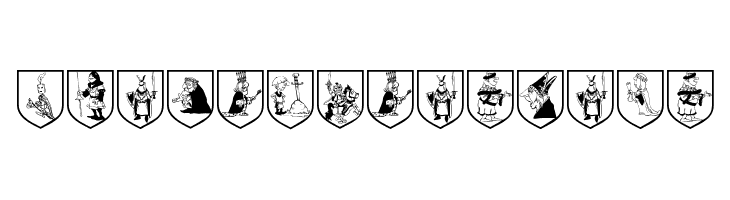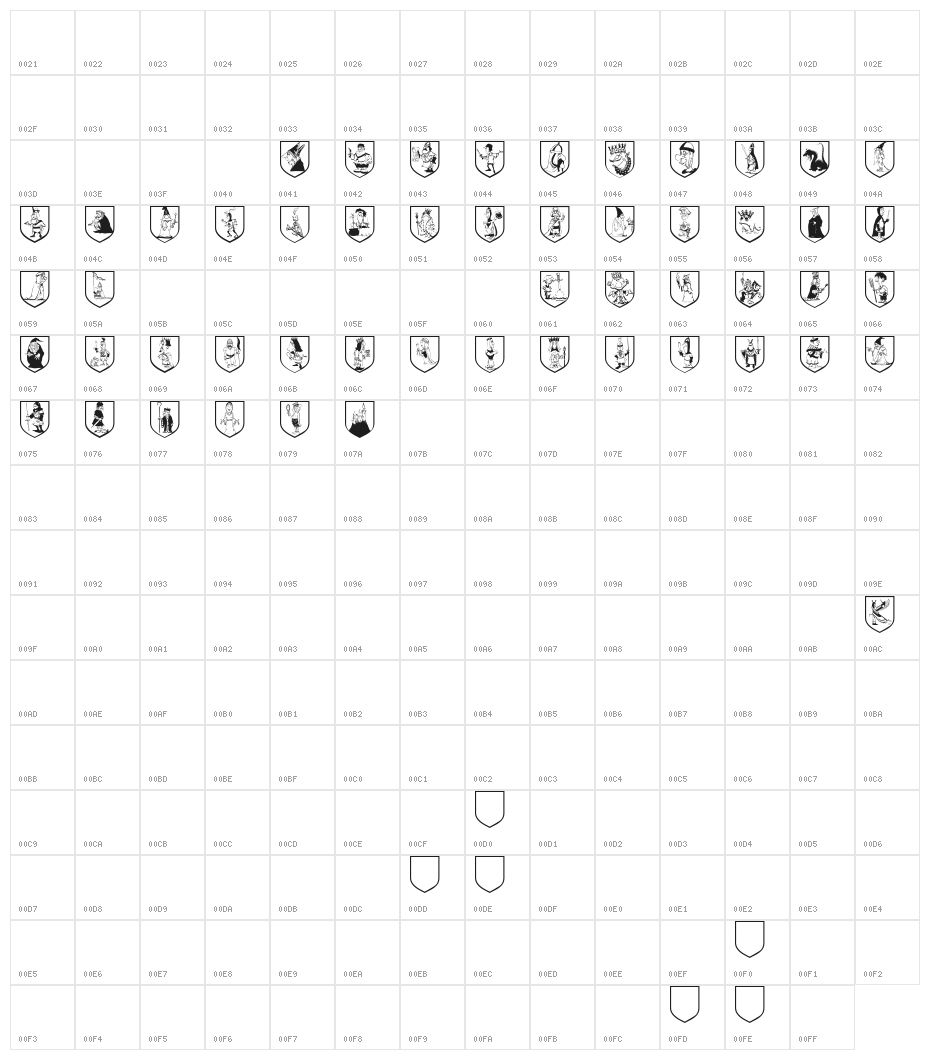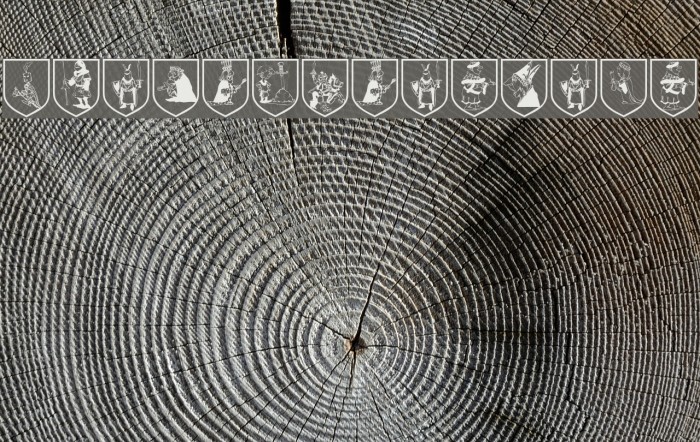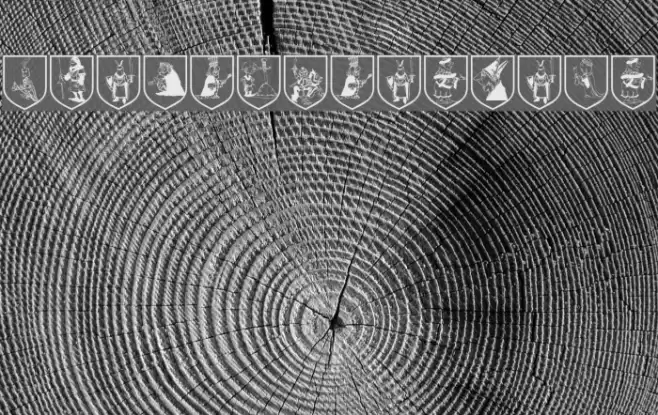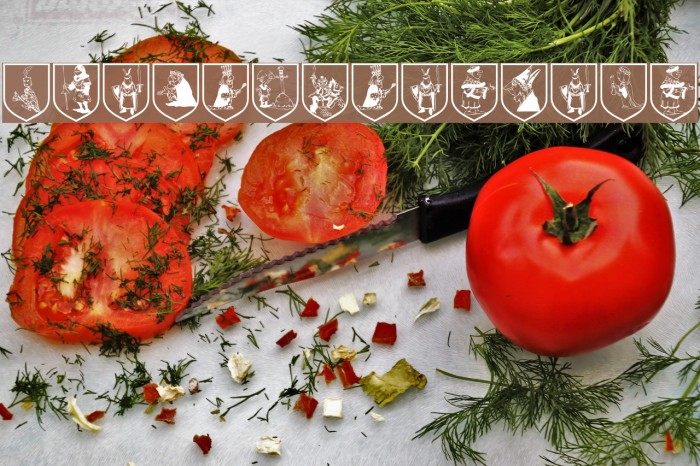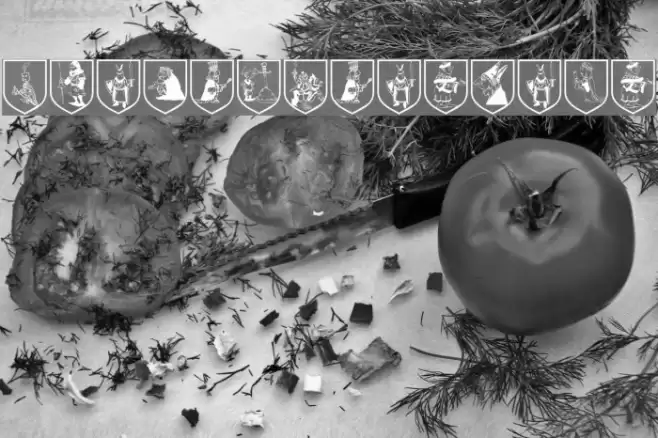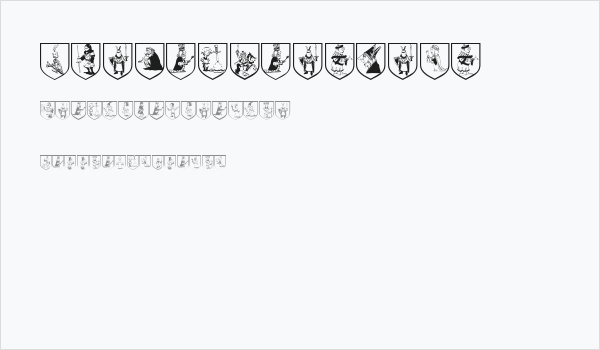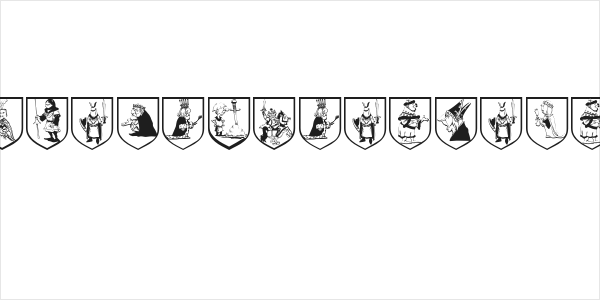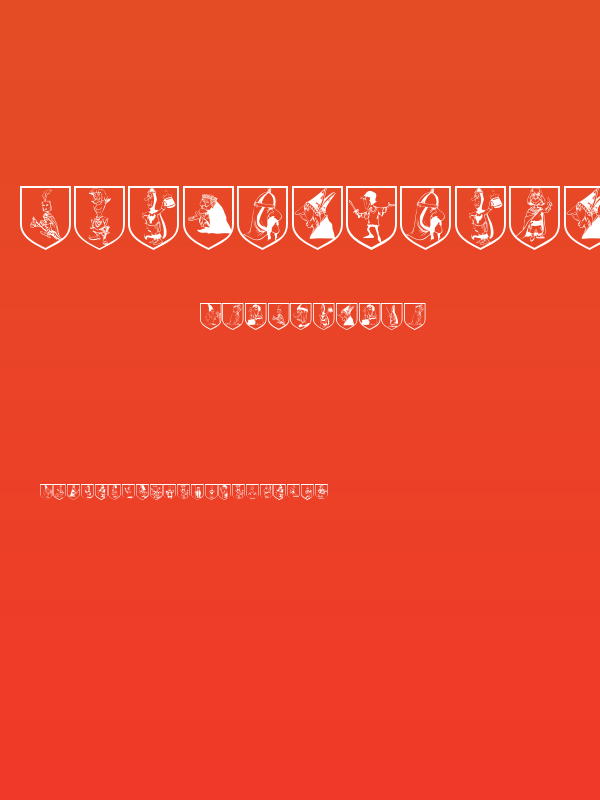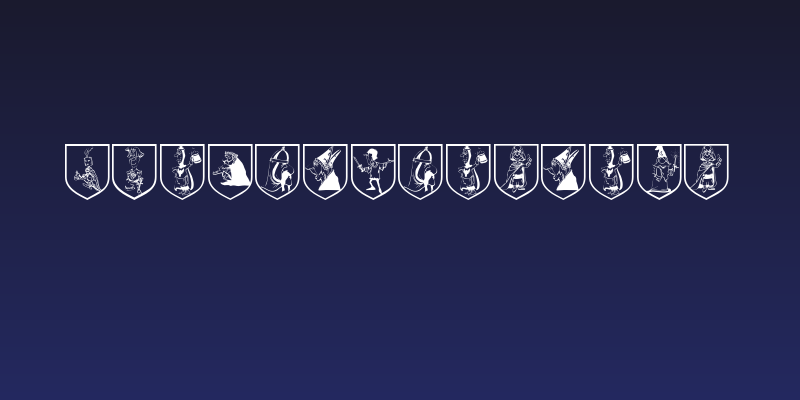
OurLeadersArms Font
OurLeadersArms Description
A decorative display font featuring whimsical, hand-drawn illustrations of various characters and figures inside shield-shaped frames, each representing a different letter, number, or symbol. The style is playful and cartoonish, with each glyph uniquely themed.
| Overall Style | Decorative, Whimsical, Cartoonish |
| Use Case | Headlines, Posters, Themed Graphics, Children's Materials |
| Proposed Projects | Children's books, posters, themed party invitations, educational materials, novelty branding. |